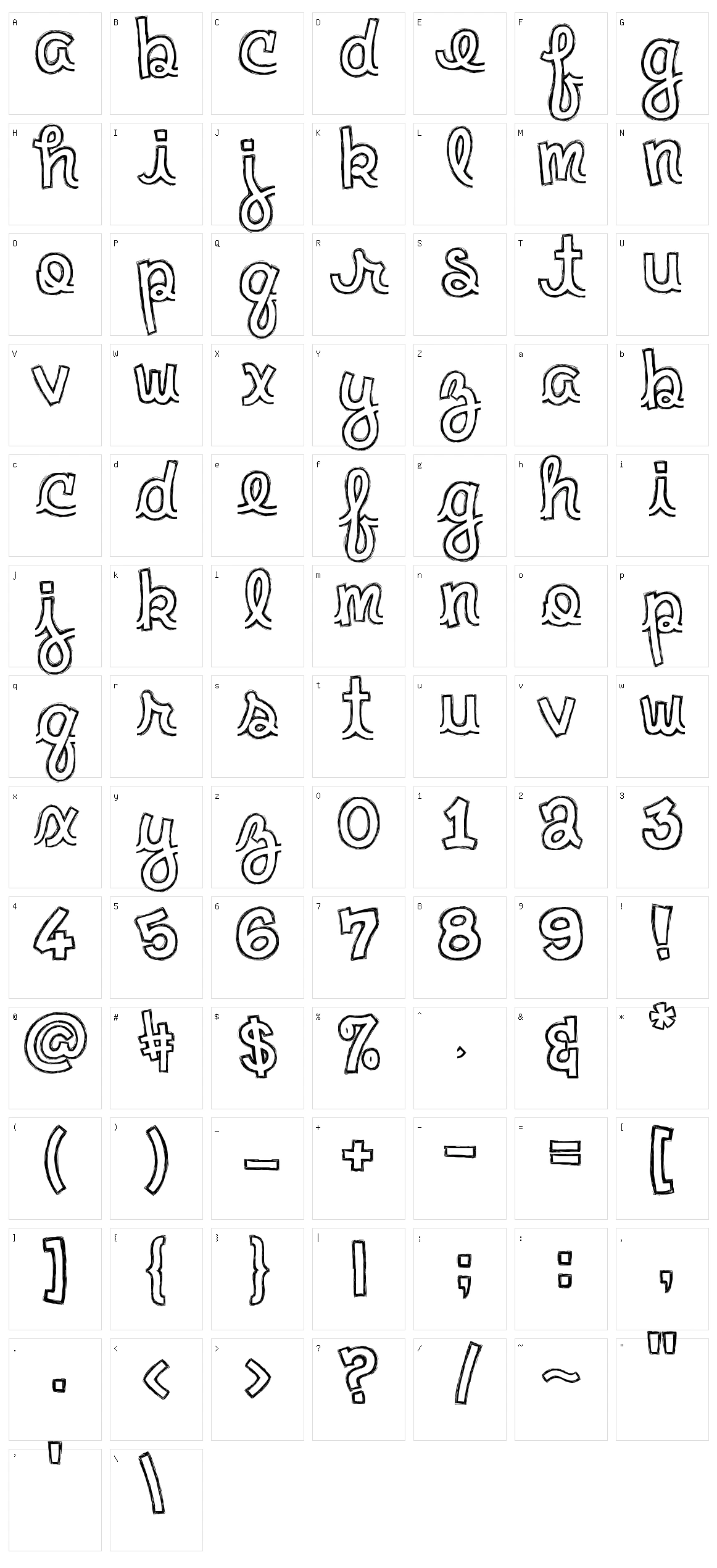
To make this font display correctly -- that is, with the beginnings and ends of each word closed -- you must begin each word with a capital letter and end each word with the symbol ^. (There are two irregularities: W & V. If a word contains a W, you must end the preceding letter with a ^. If a word contains a V, you must end the preceding letter with a ^ and capitalize the letter following the V.)